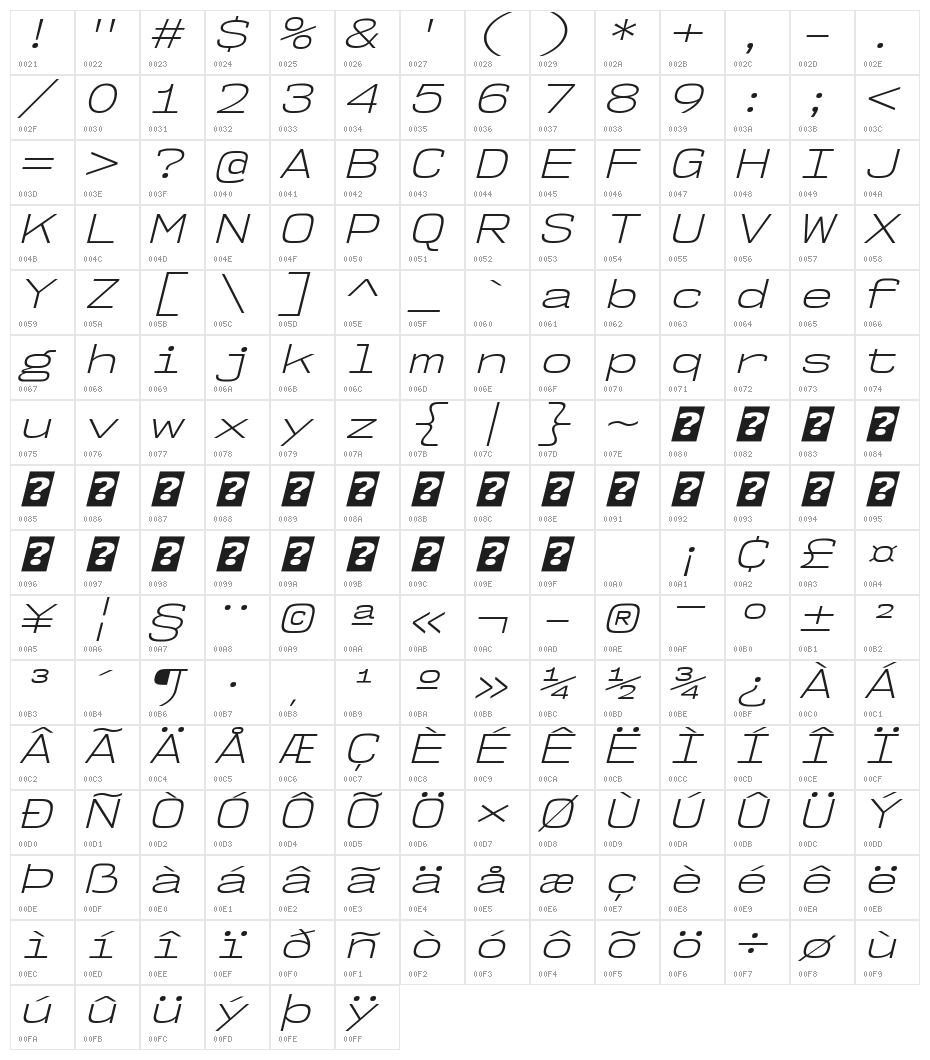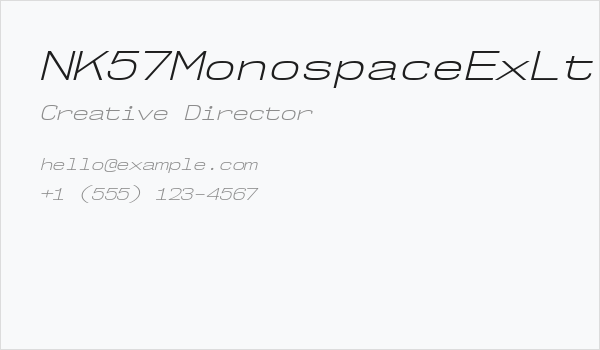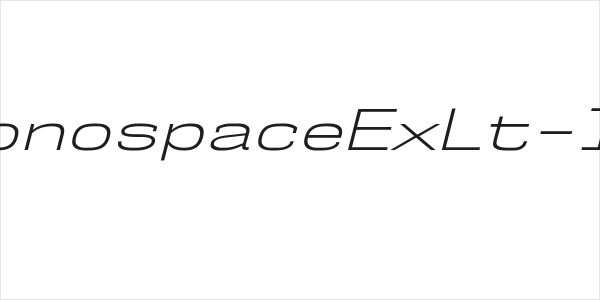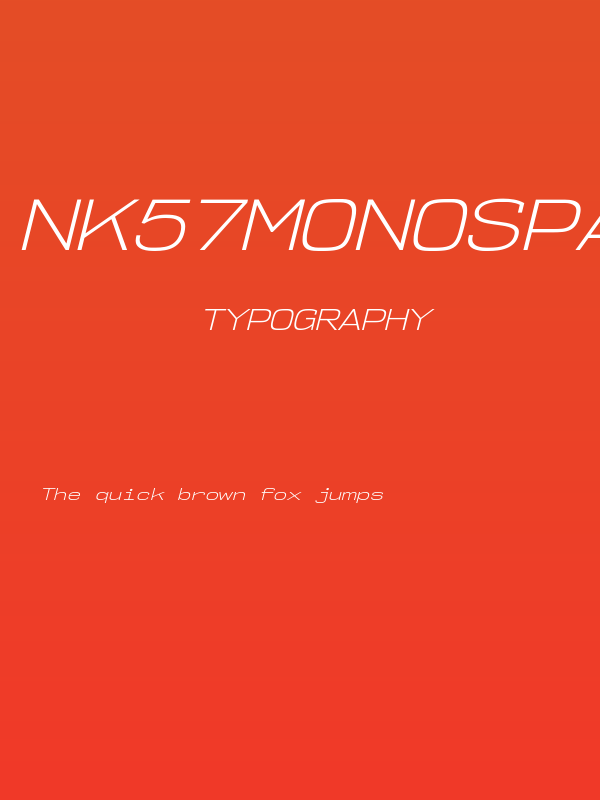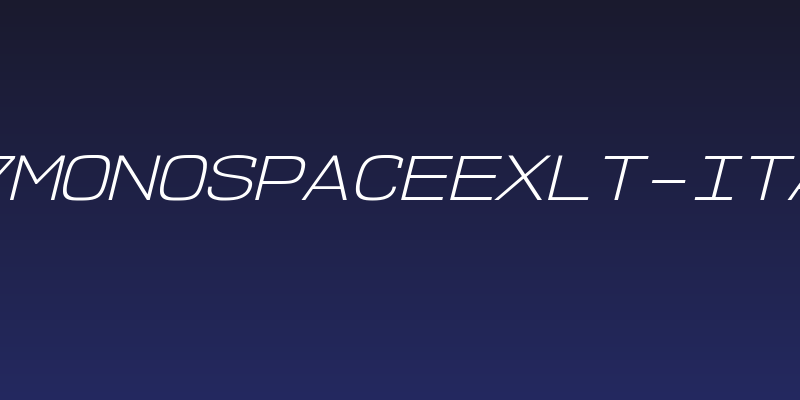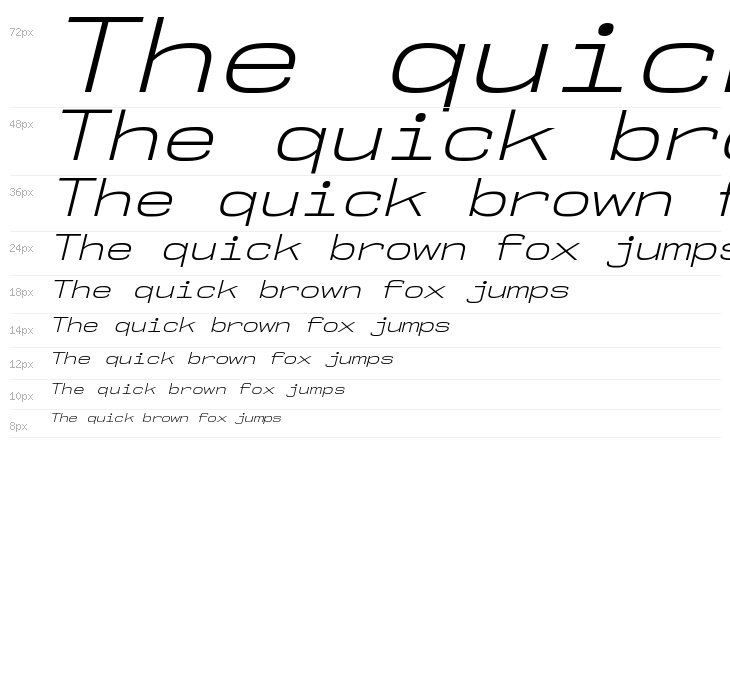
NK57MonospaceExLt-Italic Font
NK57MonospaceExLt-Italic Description
This font features a clean and modern design with a monospaced structure, ensuring each character occupies the same amount of horizontal space. The italic style adds a dynamic and slightly forward-leaning appearance, enhancing readability and giving a sense of motion. The strokes are light, contributing to an airy and open feel, while maintaining clarity and precision. The characters are well-defined with a consistent width, making it suitable for coding and technical documentation. The font's overall aesthetic is sleek and contemporary, with a focus on functionality and simplicity.
| Use Case | Coding, Technical documentation |
| Proposed Projects | Ideal for coding, technical documentation, and any project requiring a clear and uniform text appearance. |